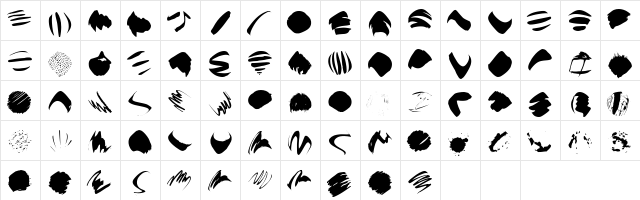
BrushapesRound Italic
Design Context for BrushapesRound Typeface
BrushapesRound brings a calligraphic fluidity to the page — its connecting strokes and expressive curves give it an unmistakably human quality.